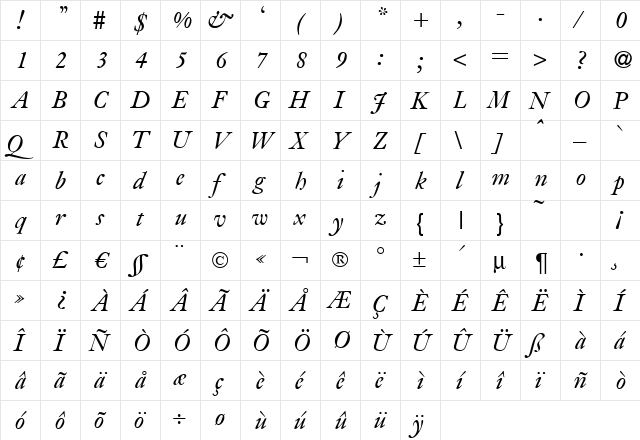
Jacobite Italic
Design Context for Jacobite Typeface
Jacobite offers clean, dependable letterforms without strong stylistic allegiance, making it a practical choice for designers who need flexibility. The dynamic lean of this cut emphasises speed and emphasis in any layout.
Pro Tip: Use Jacobite for emphasis, pull quotes, and subheadings where its slanted energy can add rhythm to the layout.